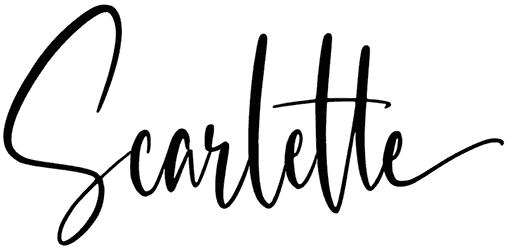
Scarlette Font
Scarlette, like other handwritten fonts, might be a wonderful option when you want to make posters, shop banners, tattoos, or flyers that stand out from the crowd. This lovely script font will give your work an edge, even though it’s a little difficult to read.